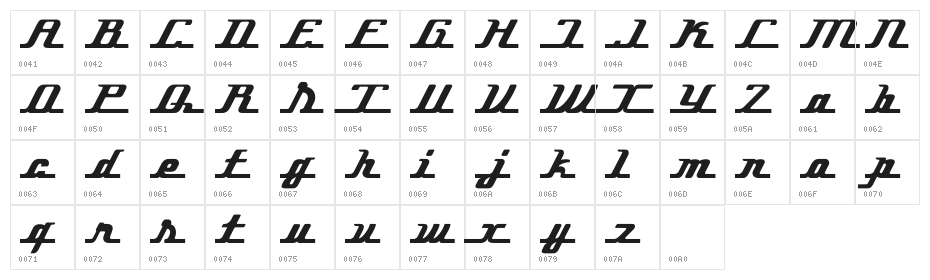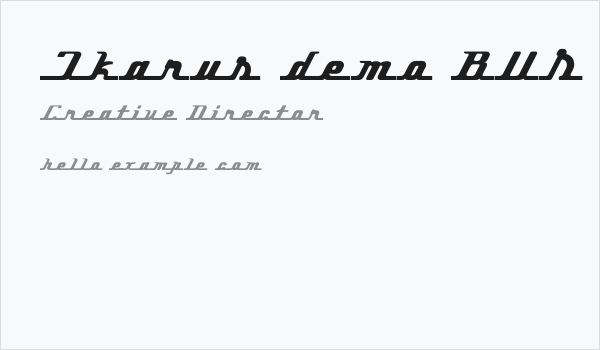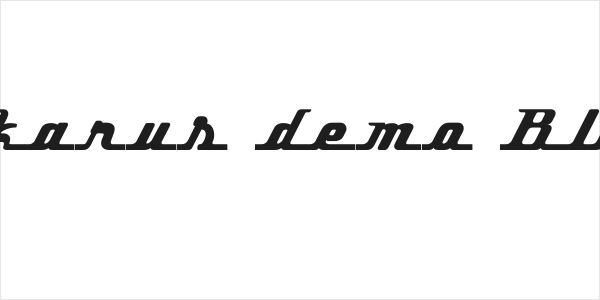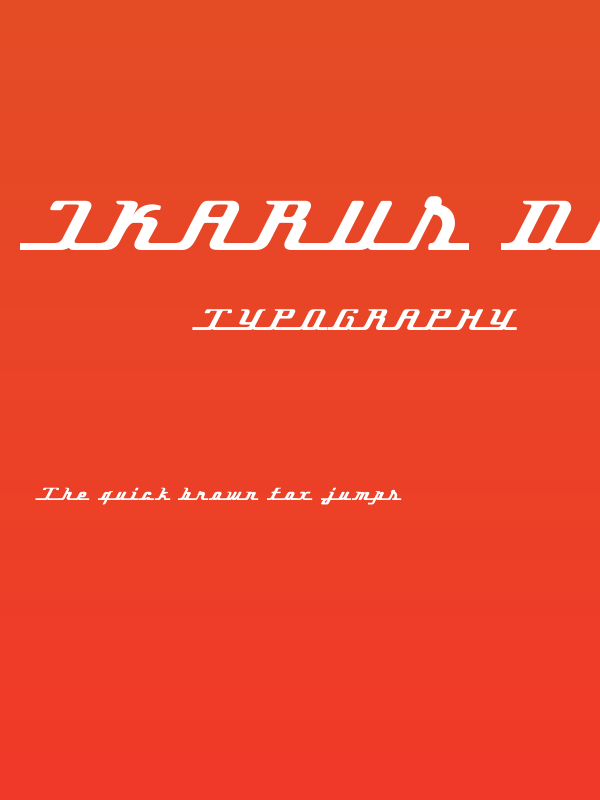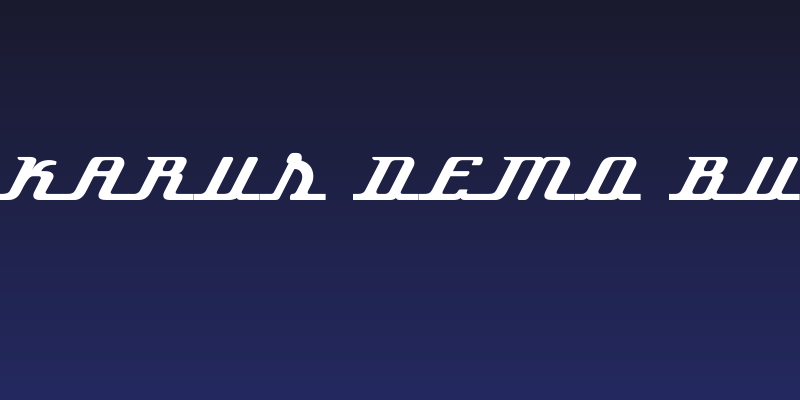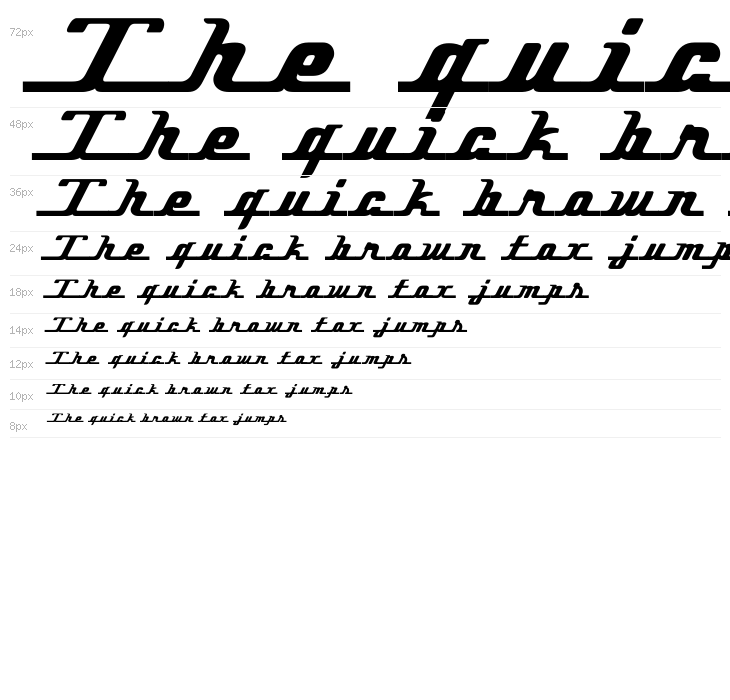
Ikarus demo BUS Font
Ikarus demo BUS Description
This font features a distinctive cursive style with a modern twist. The characters are connected, giving it a flowing, handwritten appearance. The uppercase and lowercase letters maintain a consistent slant, enhancing the script-like quality. The strokes are bold and uniform, providing a strong visual presence. The numerals and special characters are designed to match the overall aesthetic, ensuring cohesion across all elements. This font's unique style makes it suitable for creative and expressive projects.
| Proposed Projects | Ideal for branding, invitations, greeting cards, and creative logos. |